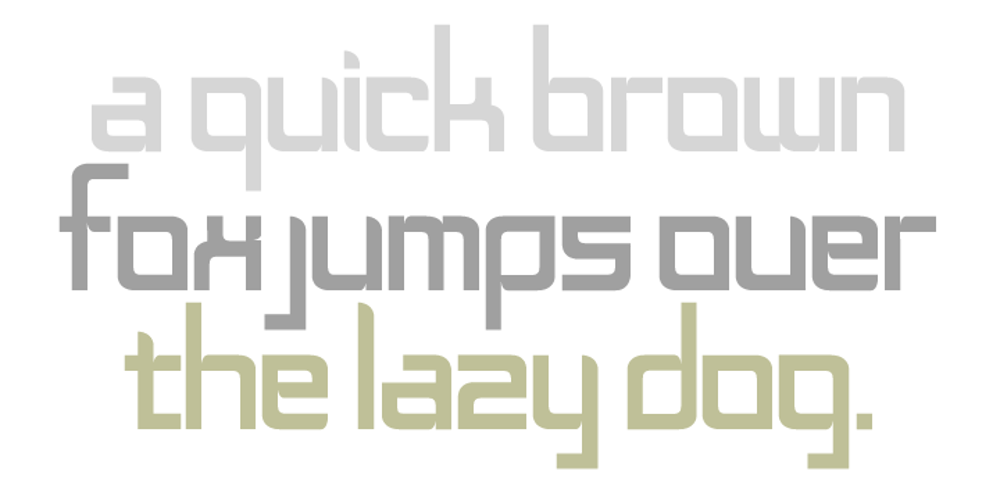
[D]ONLINE Font Family was designed by Don Citarella and published by Don Citarella. [D]ONLINE contains 1 styles and family package options. [D]ONLINE is the first font family designed by Don Citarella for his blog, [D]ONLINE, and was created to provide a signature feel for its namesake. It combines a strong, medium stroke with arching end caps to embue the typeface with a futuristic curvilinear feel. This display font is best used for headlines, identities, wordmarks and other instances involving minimal copy and maximal whitespace The typeface includes 300 characters, including 45 accented glyphs and 30 ligatures.